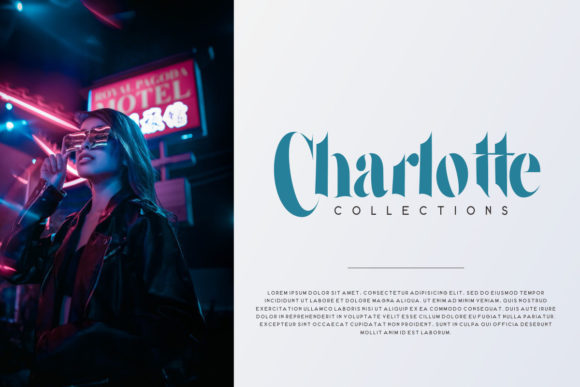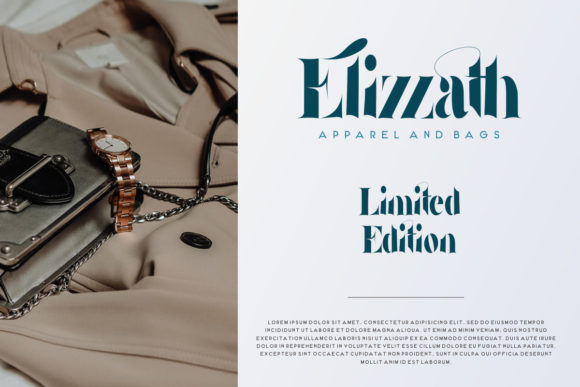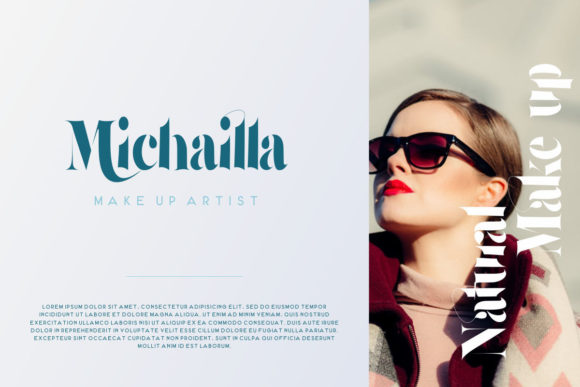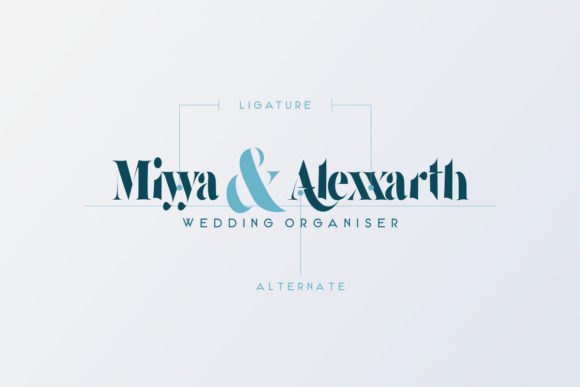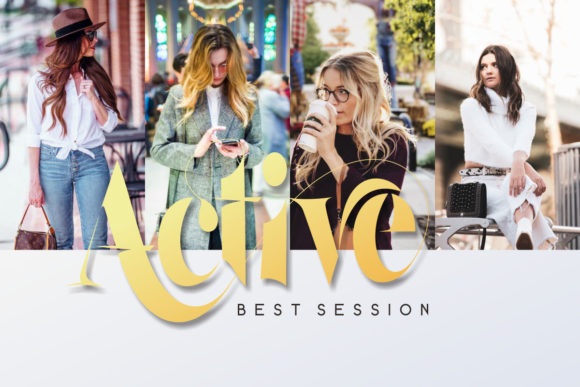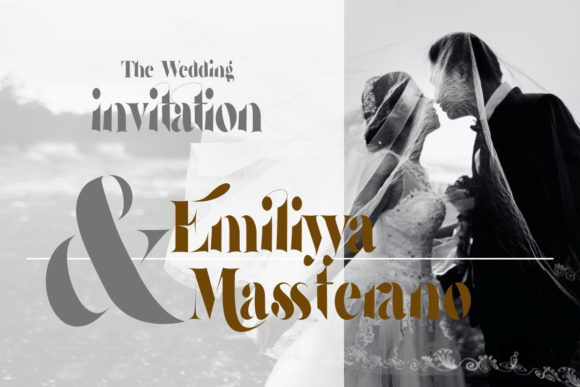
Introducing Active Font: Elevate Your Designs with Luxury and Style
Are you tired of using the same old fonts in your designs? Look no further than Active Font, a luxurious and stylish serif font that’s sure to take your projects to the next level. With its elegant lines, refined features, and PUA encoding, Active Font is the perfect choice for designers and crafters looking to add a touch of sophistication to their work.
What Makes Active Font So Special?
Active Font is a serif font that’s designed to impress. Its classic lines and refined features evoke a sense of luxury and style, making it perfect for high-end designs, branding, and marketing materials. But what really sets Active Font apart is its PUA (Private Use Area) encoding. This means that you can access all of the font’s glyphs and swashes with ease, giving you unparalleled creative control over your designs.
The Benefits of PUA Encoding
PUA encoding is a game-changer for designers. It allows you to access a wide range of glyphs and swashes, which can be used to add decorative touches to your designs. With Active Font, you can easily access these glyphs and swashes using a Unicode map, making it simple to incorporate them into your work. This level of creative control is essential for designers who want to produce high-quality, unique designs that stand out from the crowd.
Design Ideas to Get You Started
Active Font is versatile and can be used in a wide range of design projects. Here are a few ideas to get you started:
- Branding and logos: Use Active Font to create a luxurious and sophisticated brand identity. The font’s elegant lines and refined features make it perfect for high-end brands.
- Marketing materials: Add a touch of style to your marketing materials, such as brochures, flyers, and business cards. Active Font is sure to make your materials stand out from the crowd.
- Packaging design: Use Active Font to create eye-catching packaging that reflects your brand’s luxury and style.
- Stationery: Add a touch of elegance to your stationery, such as letterheads, invoices, and envelopes.
Why Choose Active Font?
There are many fonts on the market that claim to be luxurious and stylish, but Active Font stands out from the crowd. Here are just a few reasons why:
- Unique design: Active Font has a unique design that’s both elegant and refined. Its classic lines and serif features make it perfect for high-end designs.
- PUA encoding: The font’s PUA encoding gives you unparalleled creative control over your designs. With access to a wide range of glyphs and swashes, you can add decorative touches to your designs with ease.
| Font Name | Active Font |
| Author | Fontoriouse Studio |
Active Font is a luxurious and stylish serif font that’s perfect for designers and crafters looking to add a touch of sophistication to their work. With its elegant lines, refined features, and PUA encoding, Active Font is sure to elevate your designs to the next level. Whether you’re working on branding, marketing materials, packaging design, or stationery, Active Font is the perfect choice. So why wait? Download Active Font today and start creating stunning designs that impress.